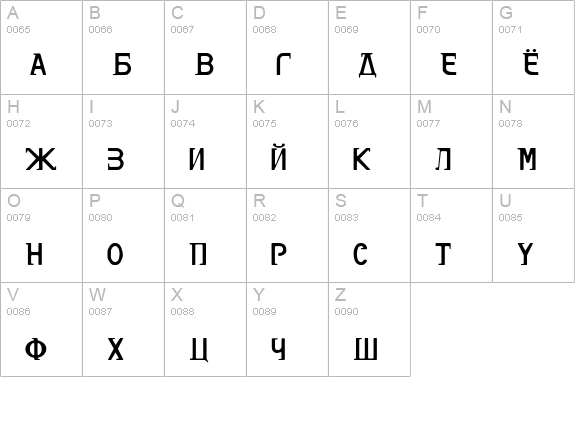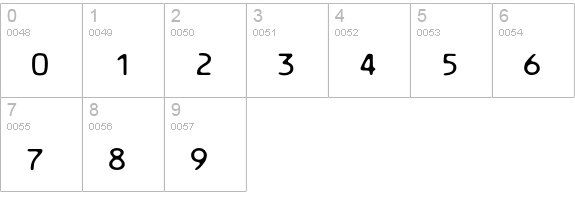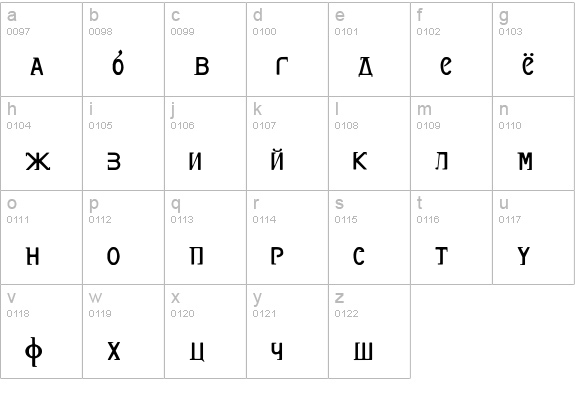
AlquitoCCCP Font Details
AlquitoCCCP is a unique and stylish font that embodies a perfect blend of modernity and classic elegance. With its sleek lines and bold curves, this font is sure to make a statement in any design project. Whether you're creating a logo, poster, or website, AlquitoCCCP will add a touch of sophistication and flair. What sets AlquitoCCCP apart is not just its striking aesthetic, but also the fact that it is available for free download at FontsMarket.com. Yes, you read that right - this exceptional font can be yours at no cost, making it an ideal choice for designers on a budget or anyone looking to add a touch of creativity to their work without breaking the bank. So why wait? Enhance your projects with the elegance and versatility of AlquitoCCCP, and let your creativity shine with this stunning font that is both stylish and free to download.